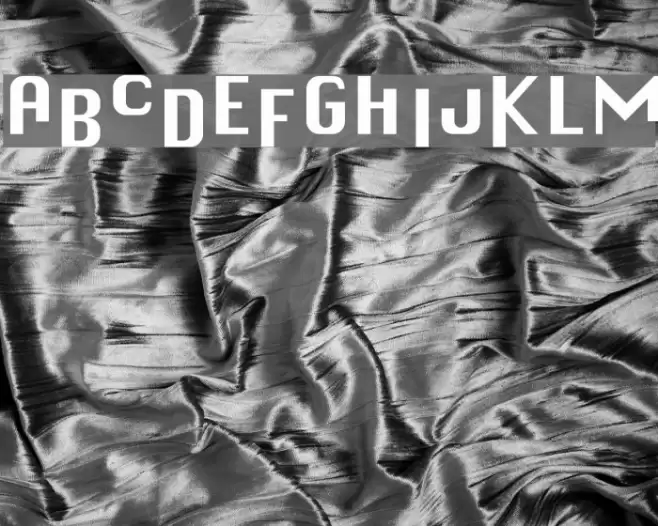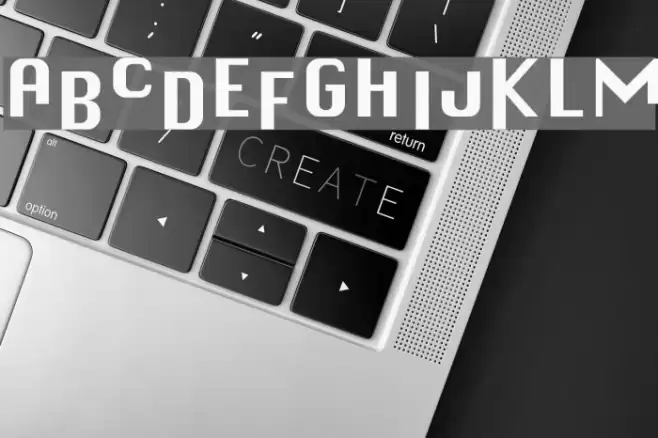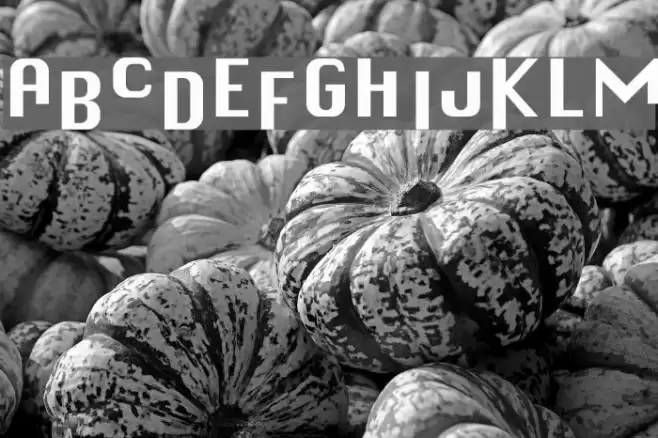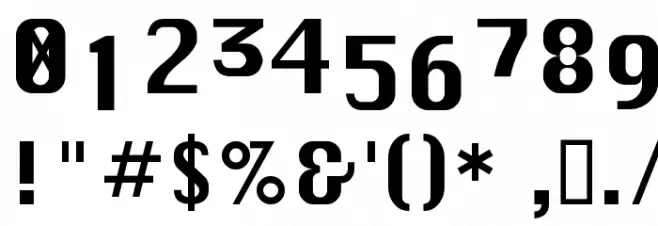
Chicagogo Font
Chicagogo Description
This font features a bold and geometric design, characterized by its strong, angular lines and uniform stroke weight. The uppercase letters are particularly striking, with a modern and slightly futuristic appearance. The lowercase letters maintain a consistent style, offering a cohesive look across different text sizes. Numbers and special characters are designed to match the overall aesthetic, ensuring versatility in various applications. The font's clean and structured form makes it suitable for both digital and print media, providing clarity and impact.
A bold, geometric font with a modern and angular design from Futuristic fonts.
- Proposed Projects: Ideal for branding, posters, headlines, and digital media where a strong visual impact is desired.